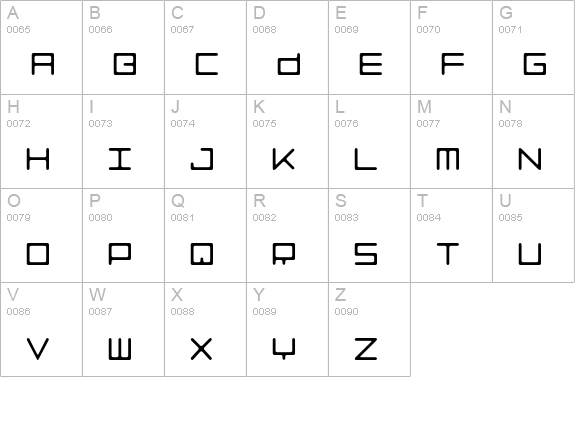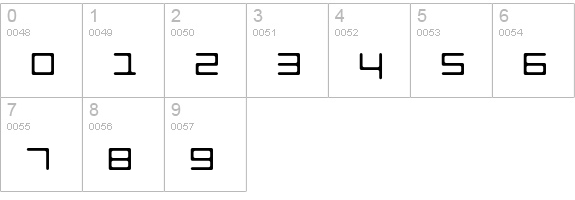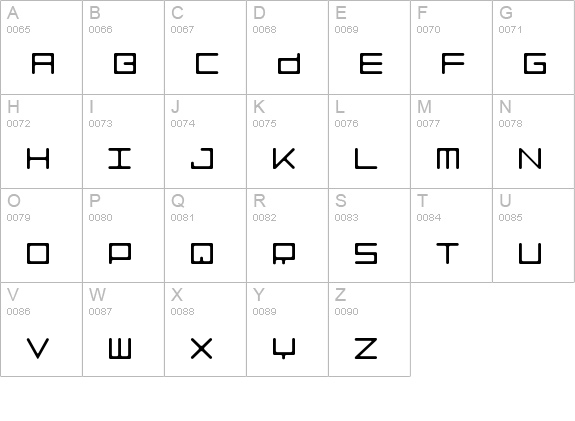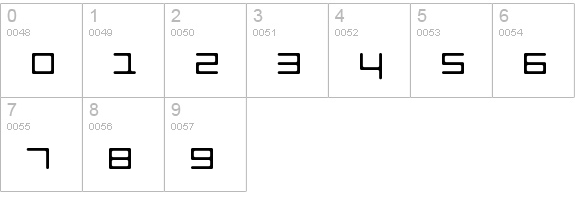
LuggageRoundLight Font Details
LuggageRoundLight font is a charming and versatile typeface that exudes a sense of modernity and sophistication. Its rounded edges and clean lines give off a friendly and approachable vibe, making it perfect for a wide range of design projects. Whether you're creating a poster, logo, or website, this font will add a touch of elegance to your work. The best part? LuggageRoundLight font is completely free to download at FontsMarket.com. So go ahead and elevate your designs with this stylish and contemporary typeface without breaking the bank. Download it now and start creating stunning visuals that will captivate your audience.